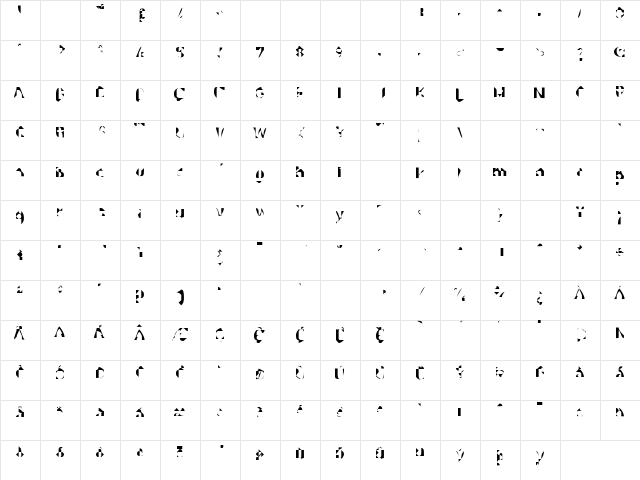
Knarkarsvin Regular
Design Context for Knarkarsvin Typeface
Knarkarsvin is a composed and adaptable typeface that performs quietly and consistently across a wide range of design contexts.
Pro Tip: Use Knarkarsvin in both headline and body roles to test its range before committing to a single application.